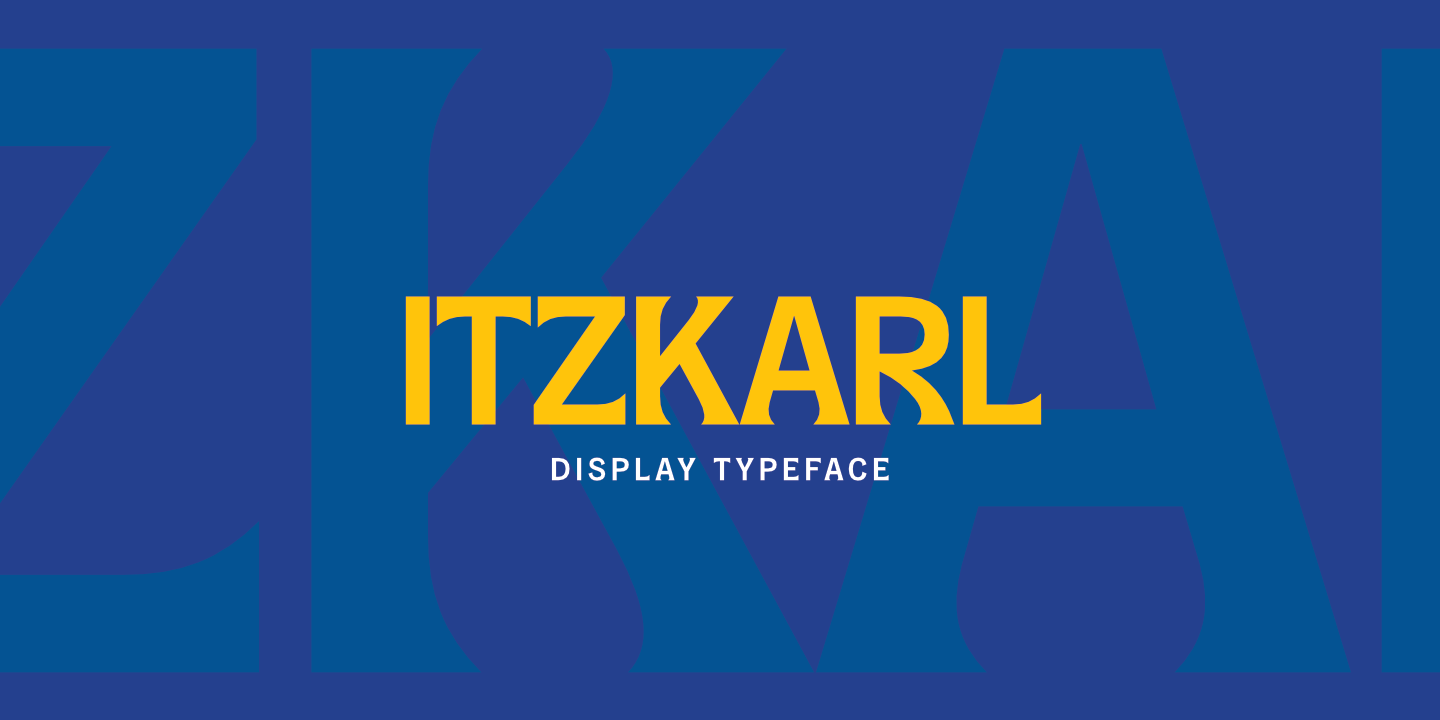
Itzkarl Font Free Download delivers distinctive typography that combines bold geometric character with contemporary sophistication for striking design applications. This commercial font requires purchase for business use, but you can download it for free for testing purposes to evaluate its unique characteristics in your creative projects.
Itzkarl Font excels across diverse design applications including modern branding, architectural presentations, industrial design communications, tech startup marketing, urban planning materials, contemporary art exhibitions, minimalist packaging, and progressive web interfaces. Its distinctive character makes it particularly effective for projects requiring forward-thinking visual communication while maintaining professional credibility, ensuring your designs convey innovation and authority across both digital platforms and contemporary print materials.
What makes Itzkarl Font truly exciting is its innovative approach to contemporary typography that perfectly balances geometric precision with human-centered design principles. The font features carefully engineered letterforms that incorporate sharp angular elements and clean proportions that create striking visual impact while preserving optimal readability. Its distinctive character construction combines modernist design philosophy with practical functionality, creating text that feels both architecturally inspired and approachably professional. The font's optimized spacing and precise character relationships ensure superior performance across various contemporary applications while maintaining the characteristic strength that defines its commanding personality.
Itzkarl Font presents a comprehensive type family designed to support diverse modern design requirements. The family typically includes light, regular, medium, bold, and black weights, along with corresponding italic variations that provide complete flexibility for contemporary typography compositions. Many versions feature extended character sets with technical symbols, geometric ornaments, and specialized glyphs that enhance authentic modernist aesthetic applications.
The Itzkarl Font Free Download represents exceptional value for designers working on contemporary and architecturally-focused projects across multiple sectors. Whether developing tech startup branding, creating architectural documentation, designing industrial product communications, or producing modernist art publications, this font delivers consistent impact and memorable visual authority. Its contemporary characteristics make it particularly effective for industries including technology, architecture, industrial design, and contemporary arts sectors seeking to communicate innovation and progressive thinking.
For optimal results, Itzkarl Font combines excellently with clean, geometric design elements and contemporary color schemes that reinforce its modernist message. Its bold presence excels in headline applications while maintaining excellent performance in technical documentation contexts. The font's architectural sophistication and contemporary appeal make it an invaluable tool for creating progressive communications that resonate with audiences appreciating cutting-edge design and innovation.